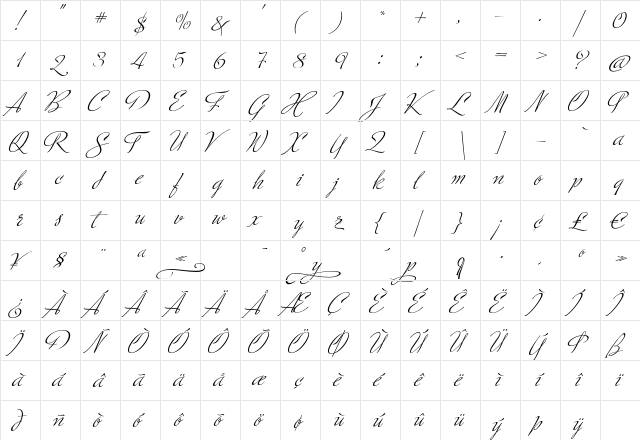
Ministry Script Regular
| Foundry | Alejandro Paul |
| Designer | Alejandro Paul |
Design Context for Ministry Script Typeface
Ministry Script brings a calligraphic fluidity to the page — its connecting strokes and expressive curves give it an unmistakably human quality.
Font Pairing: Combine Ministry Script with a simple geometric sans for maximum contrast — the tension between flowing curves and clean structure is a classic typographic pairing.
Pro Tip: Pair Ministry Script with a clean sans-serif for supporting text. The contrast between fluid script and geometric structure creates an elegant typographic hierarchy.